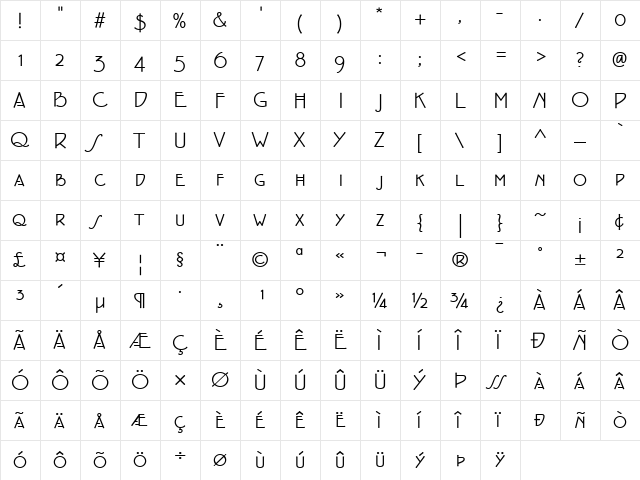
EaglefeatherSmallCaps Regular
Design Context for EaglefeatherSmallCaps Typeface
EaglefeatherSmallCaps offers clean, dependable letterforms without strong stylistic allegiance, making it a practical choice for designers who need flexibility.
Pro Tip: Use EaglefeatherSmallCaps in both headline and body roles to test its range before committing to a single application.